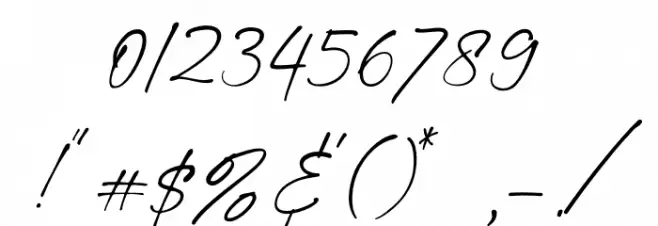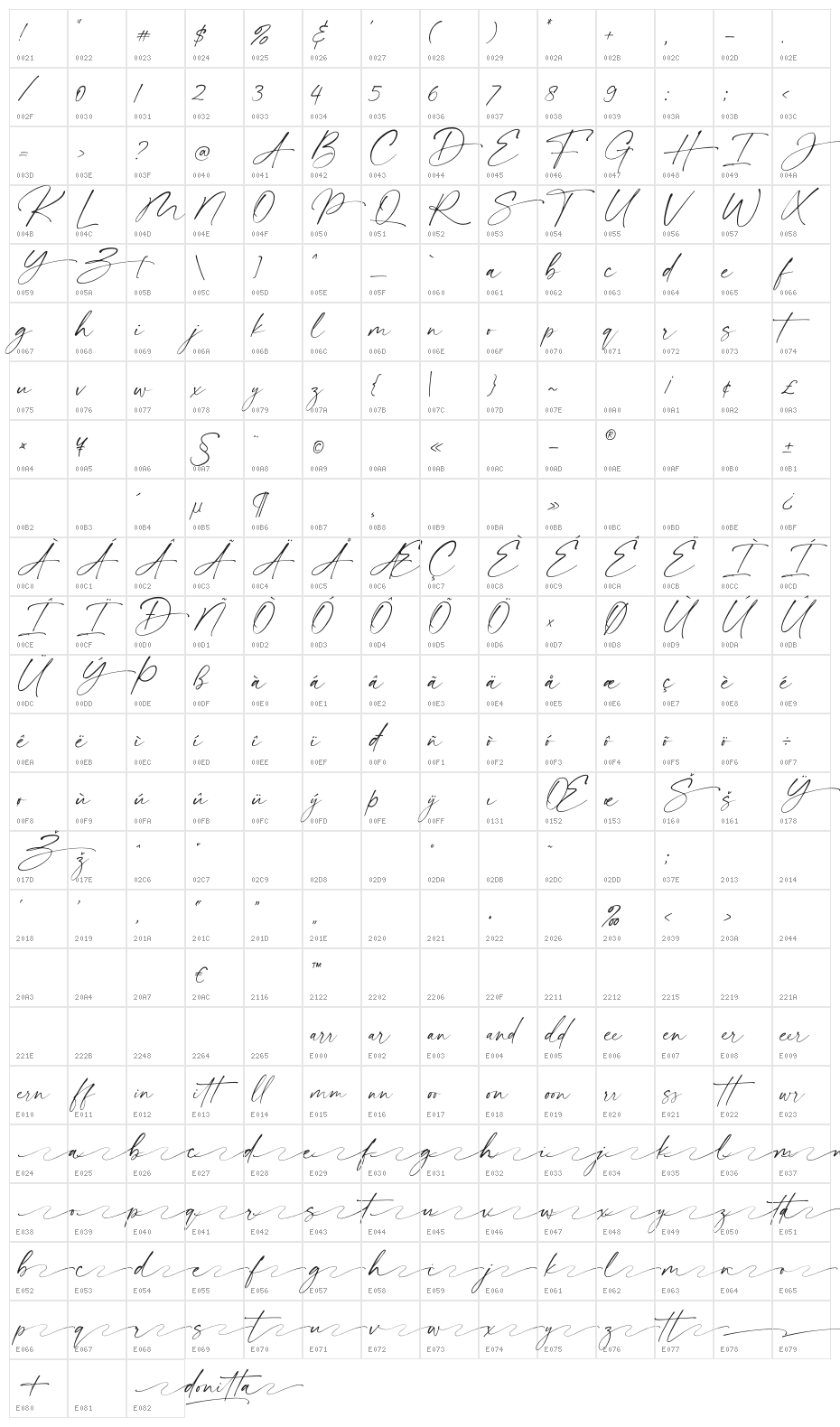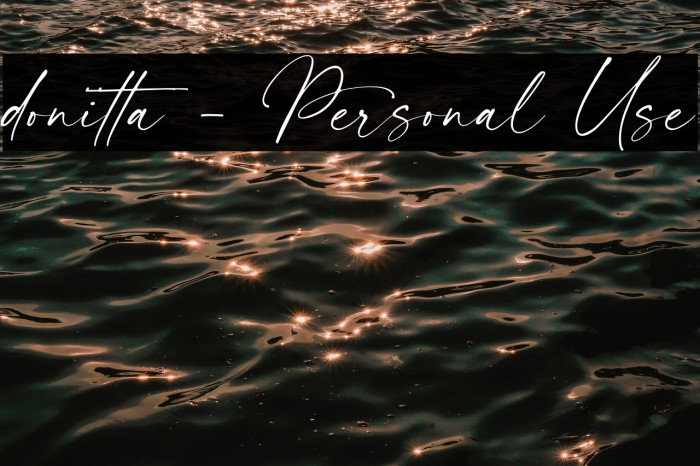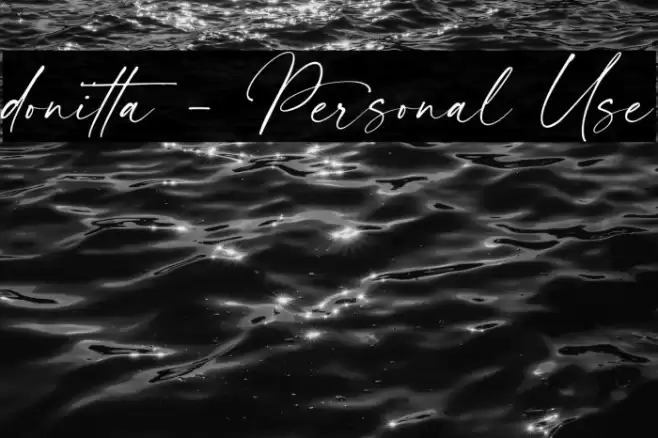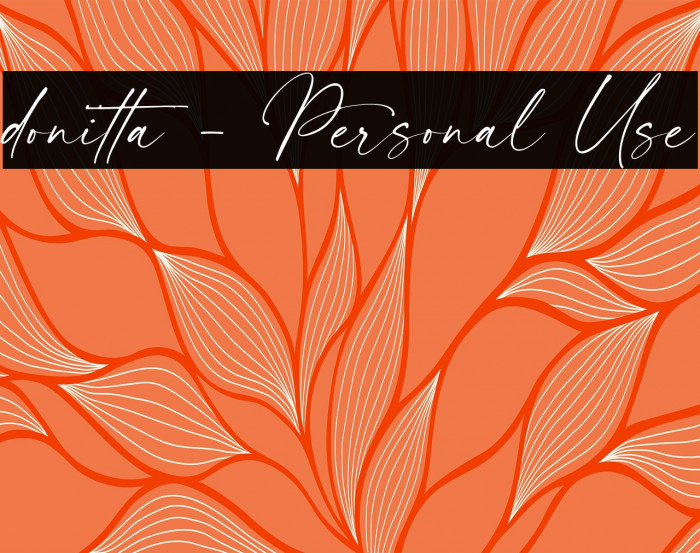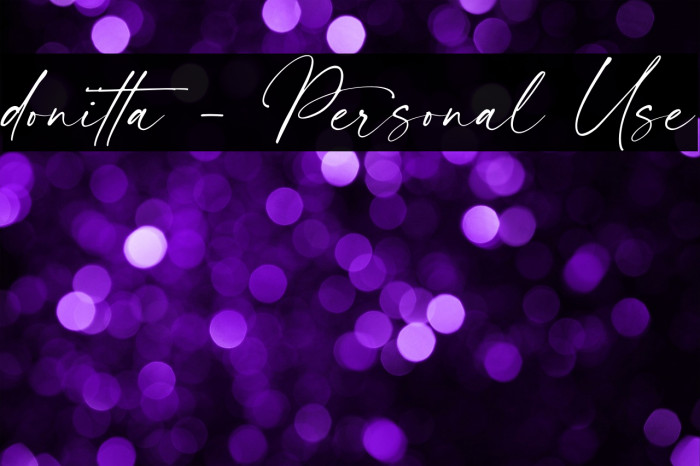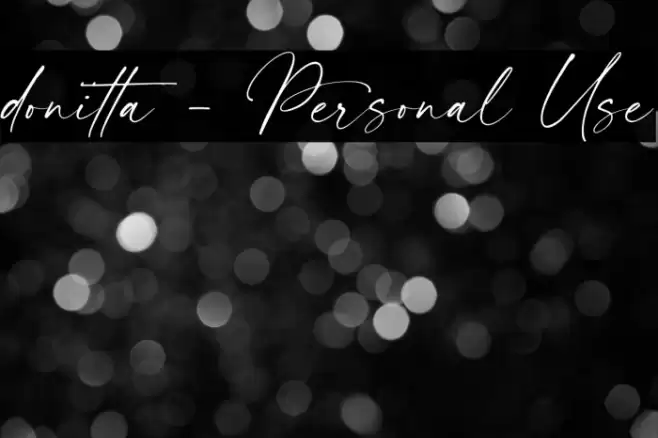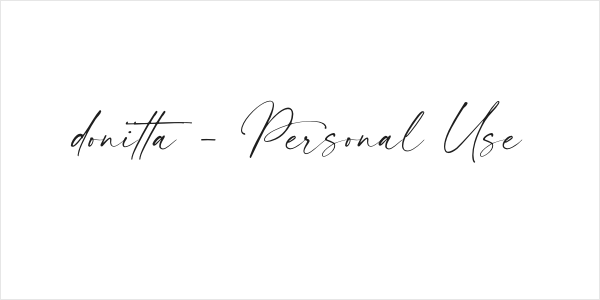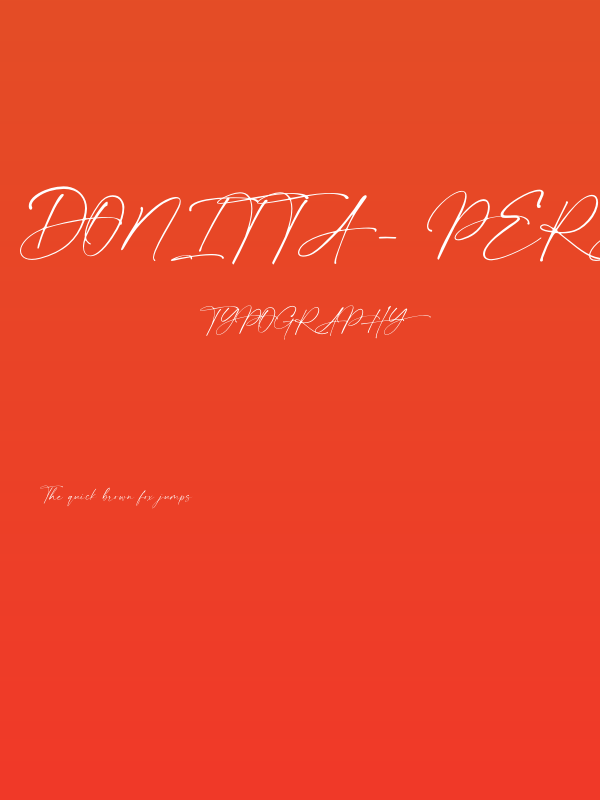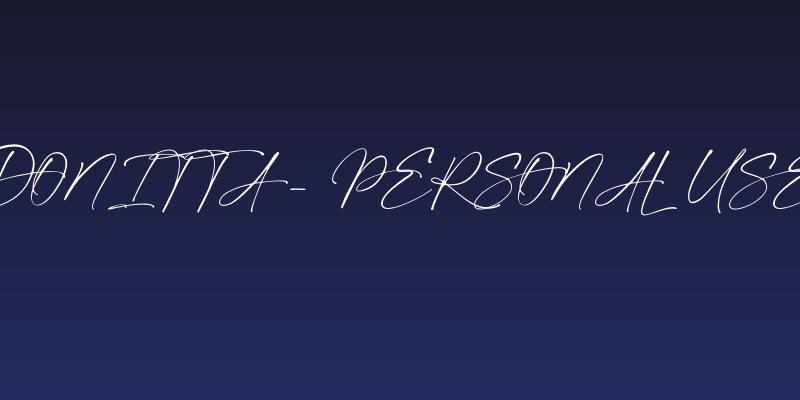
donitta - Personal Use Font
donitta - Personal Use Description
This font exudes elegance and fluidity, characterized by its cursive, handwritten style. The letters are connected with smooth, flowing strokes, giving it a natural and personal touch. The uppercase letters are slightly more elaborate, with extended loops and swashes, while the lowercase letters maintain a consistent rhythm and balance. The numerals and special characters are crafted with the same attention to detail, ensuring a cohesive look across all elements. The overall appearance is both sophisticated and approachable, making it suitable for a variety of design applications.